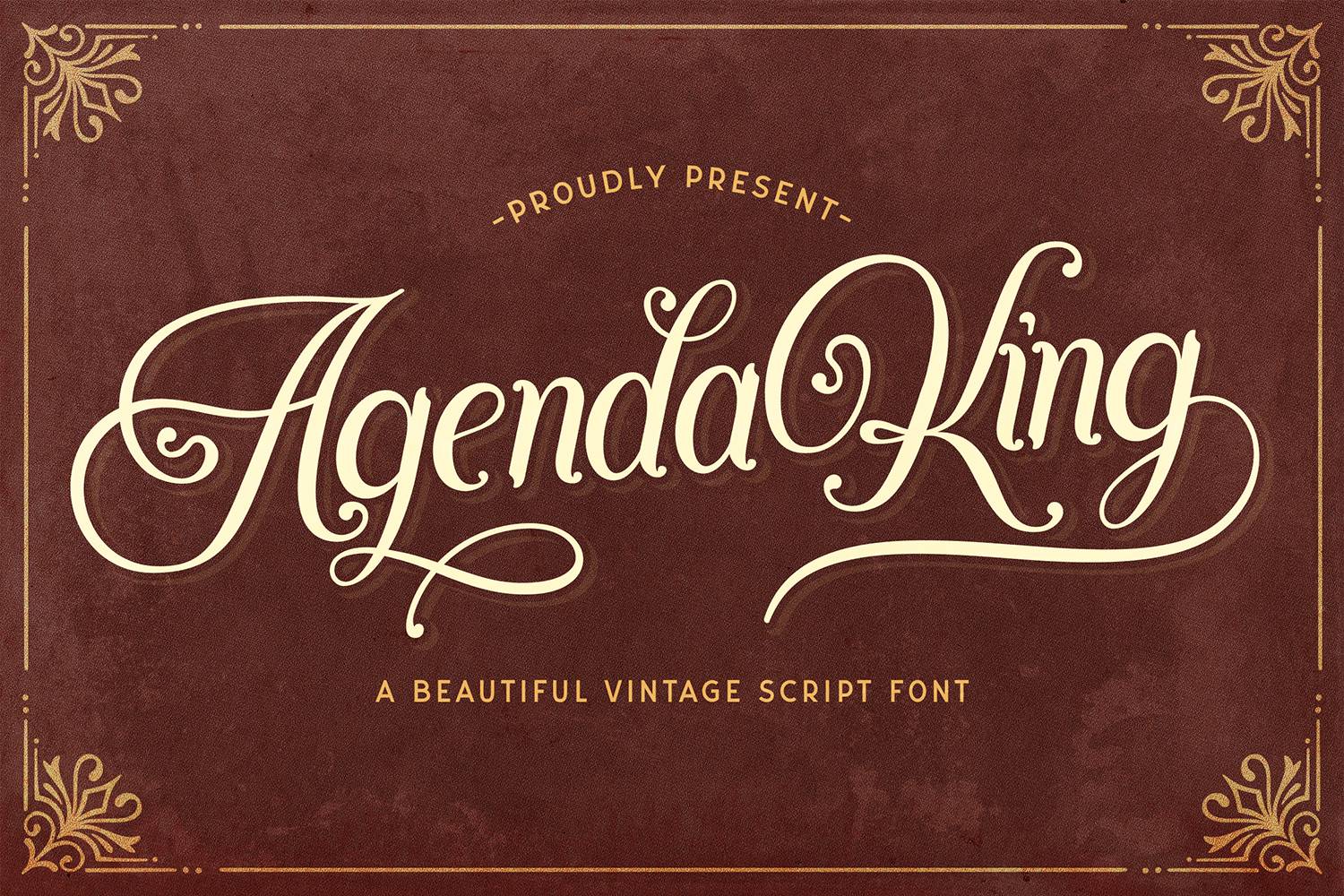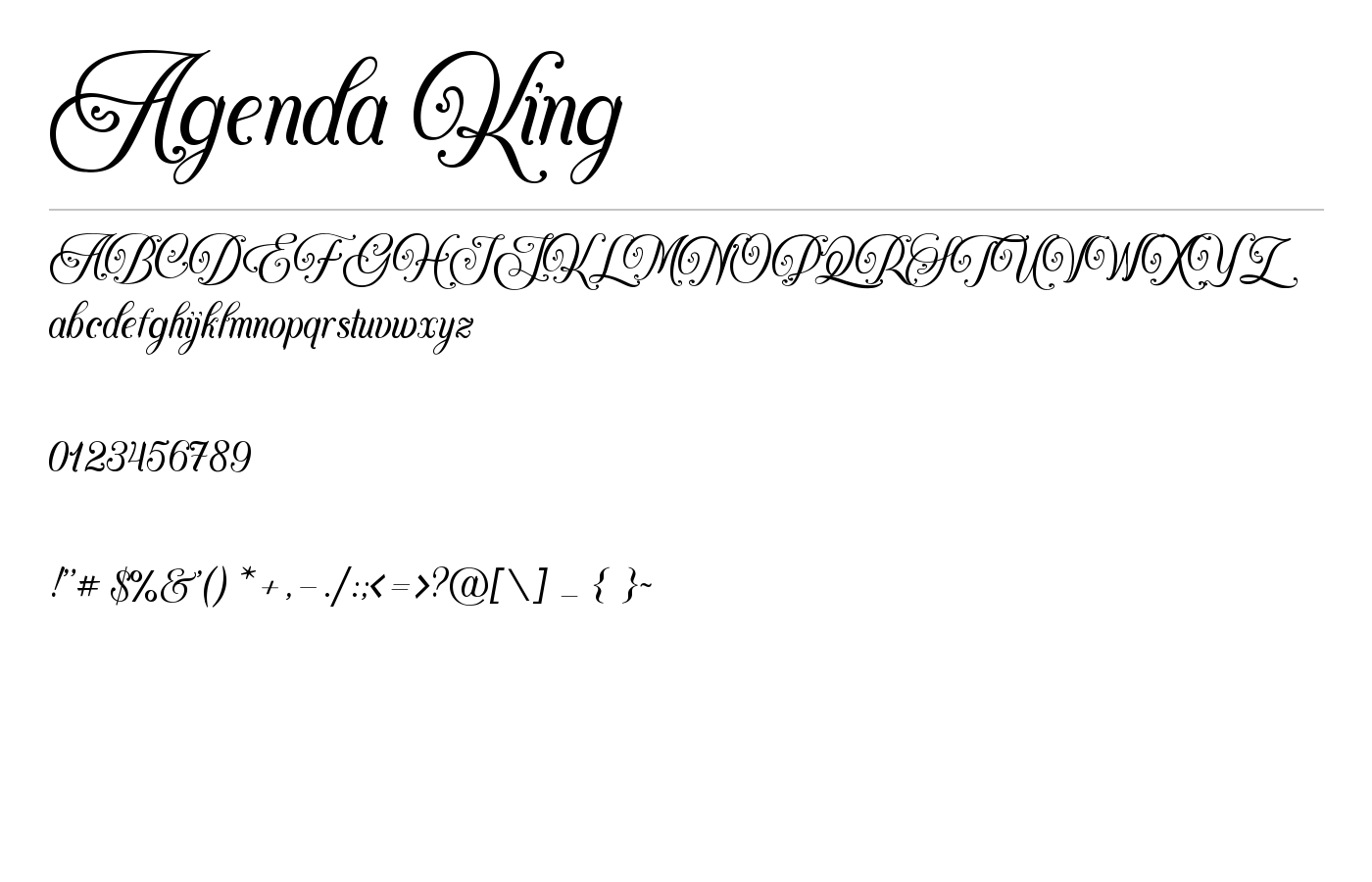
Agenda King is a delicate, elegant script font featuring highly decorative, flourishing uppercase letters paired with slender, flowing lowercase characters. Its fine strokes and graceful curves convey a refined, classic feel, making it ideal for luxury branding, wedding invitations, and sophisticated editorial projects where a touch of timeless elegance is desired. The font’s ornamental style works best in display settings, adding a sense of artistry and formality to headlines or logos.
Agenda King Font
About Agenda King Font